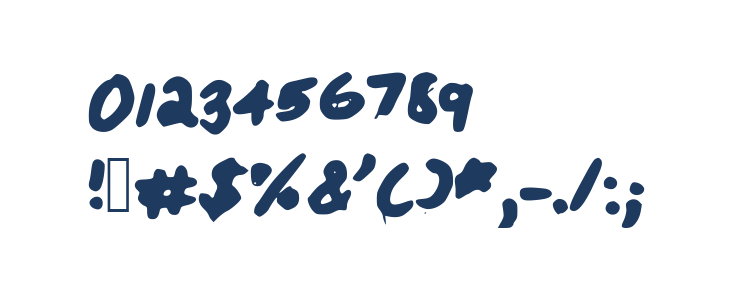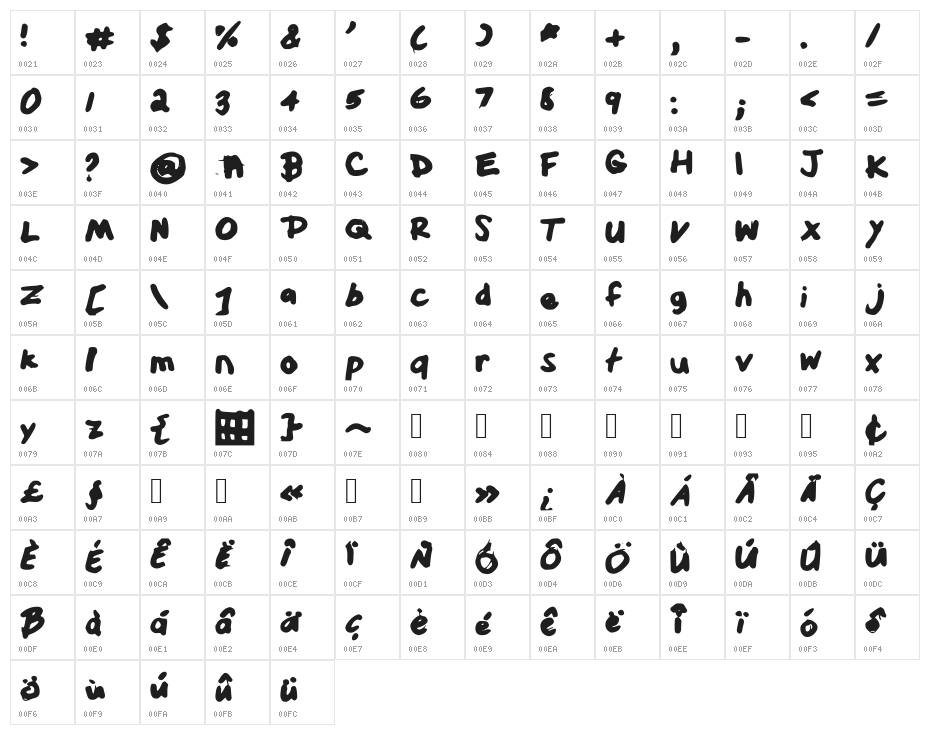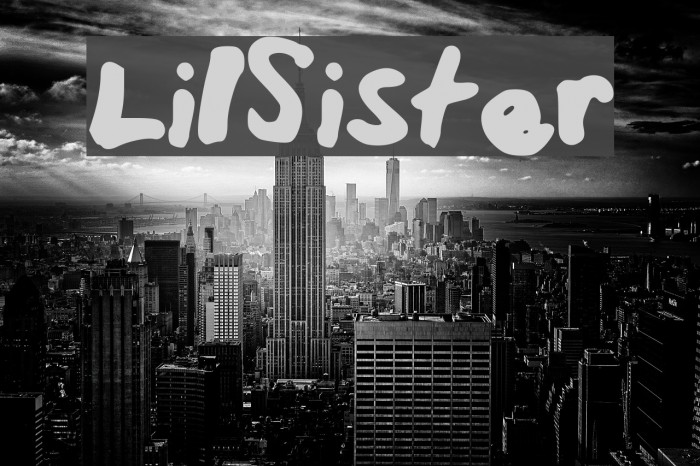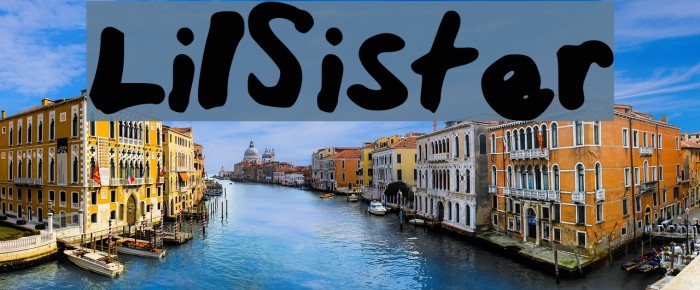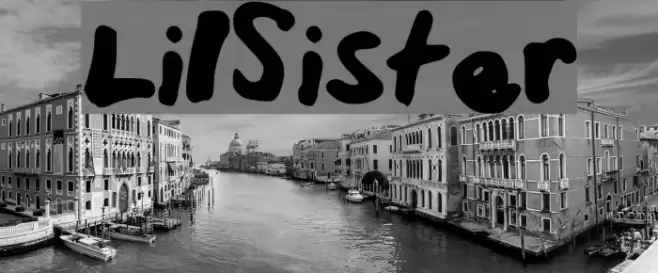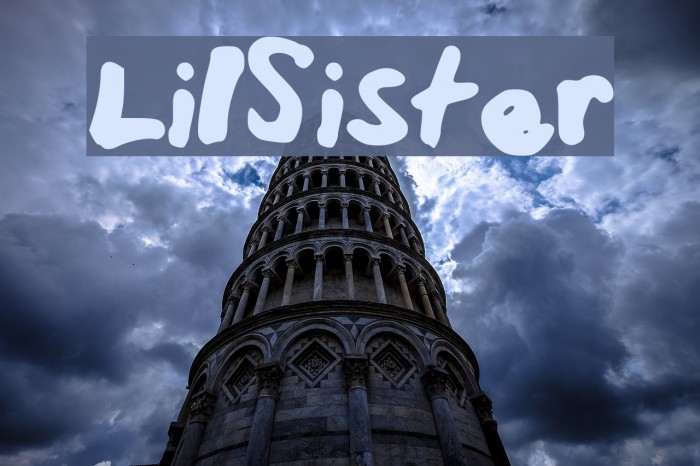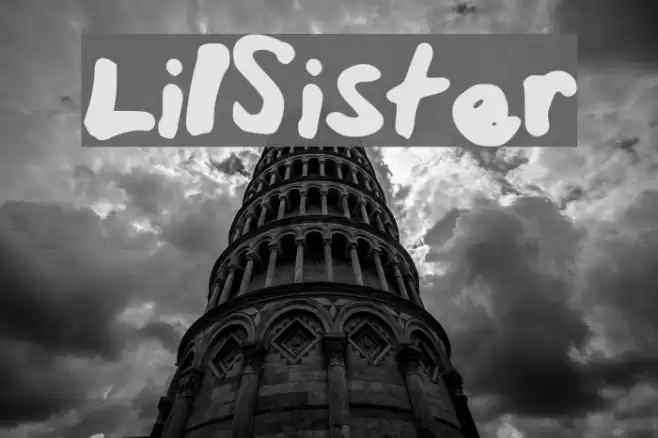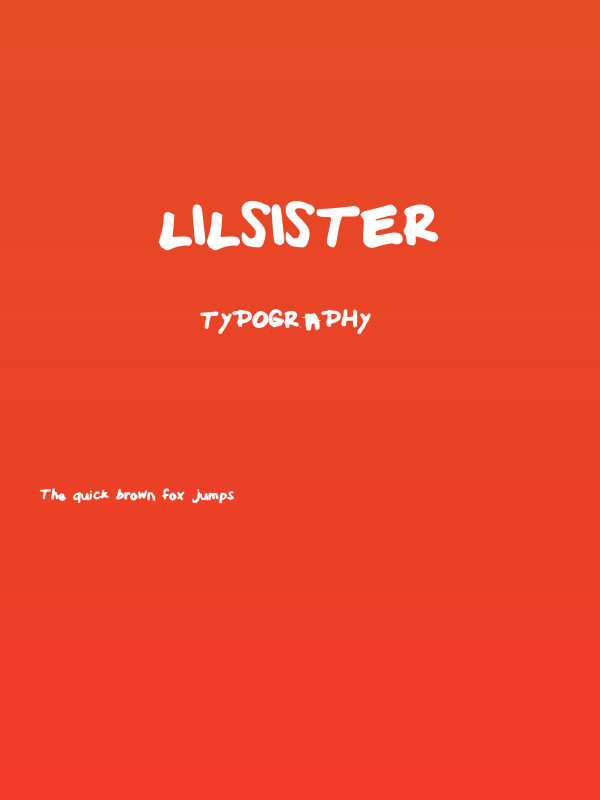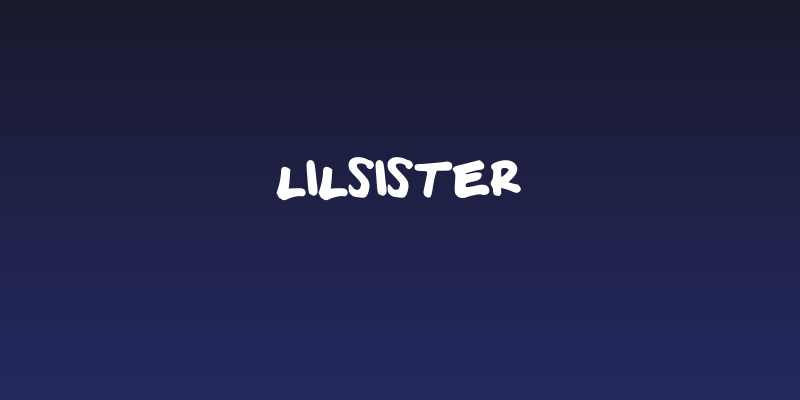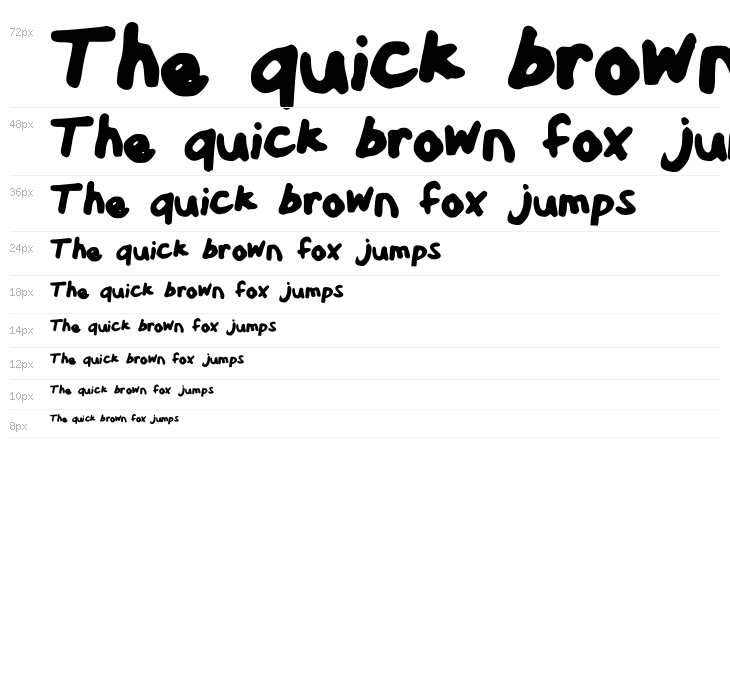
LilSister Font
LilSister Description
This playful and bold font features a hand-drawn aesthetic with thick, uneven strokes that give it a lively and informal appearance. The characters are slightly irregular, adding to the whimsical charm of the design. The uppercase and lowercase letters maintain a consistent style, with rounded edges and a friendly feel. Numbers and special characters follow the same playful theme, making the font versatile for creative projects. Its unique style is perfect for capturing attention and conveying a sense of fun and creativity.